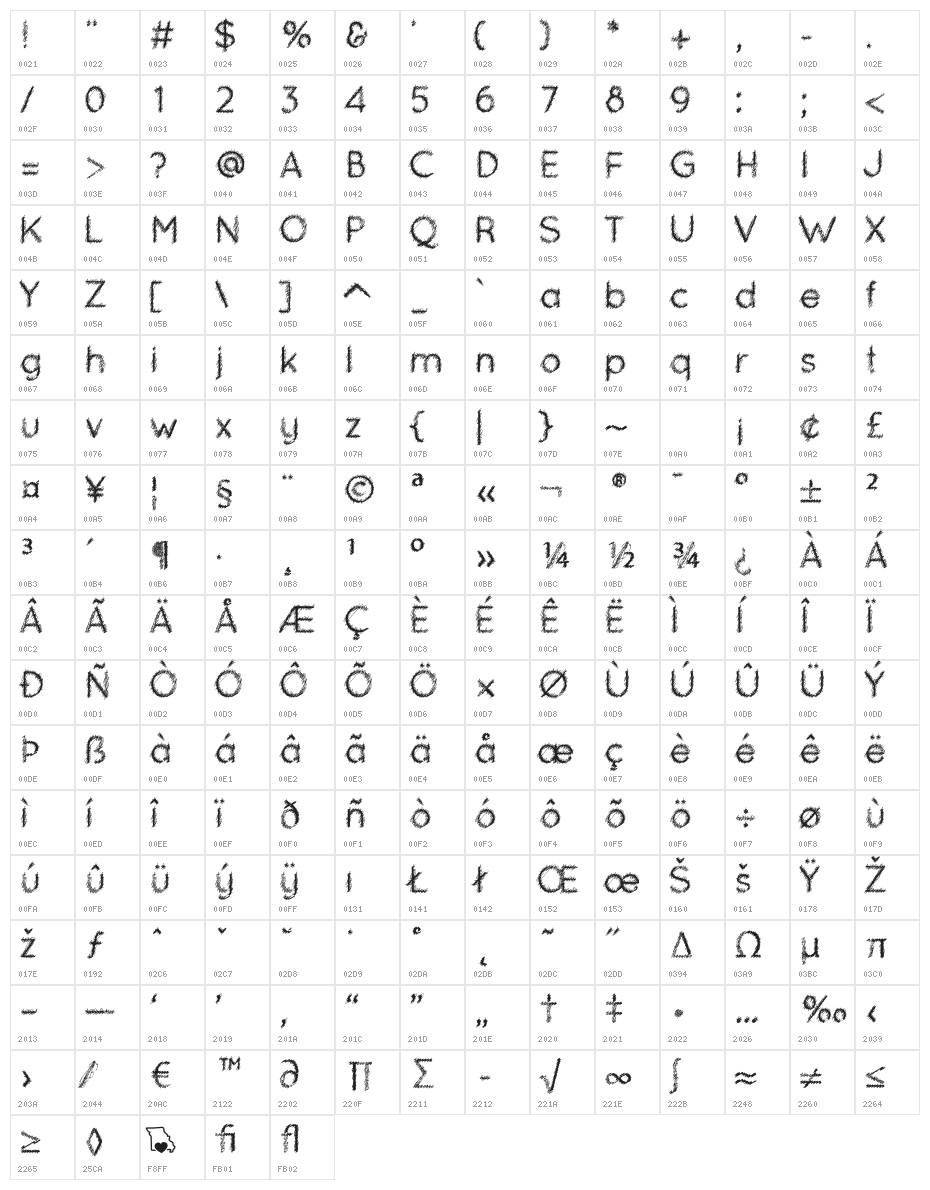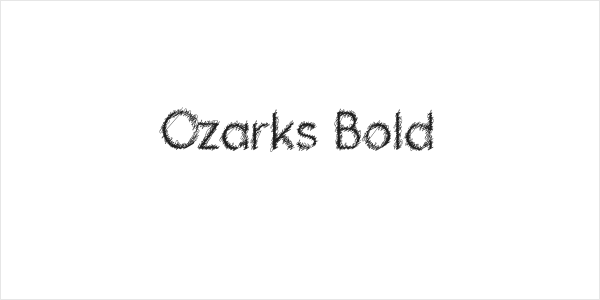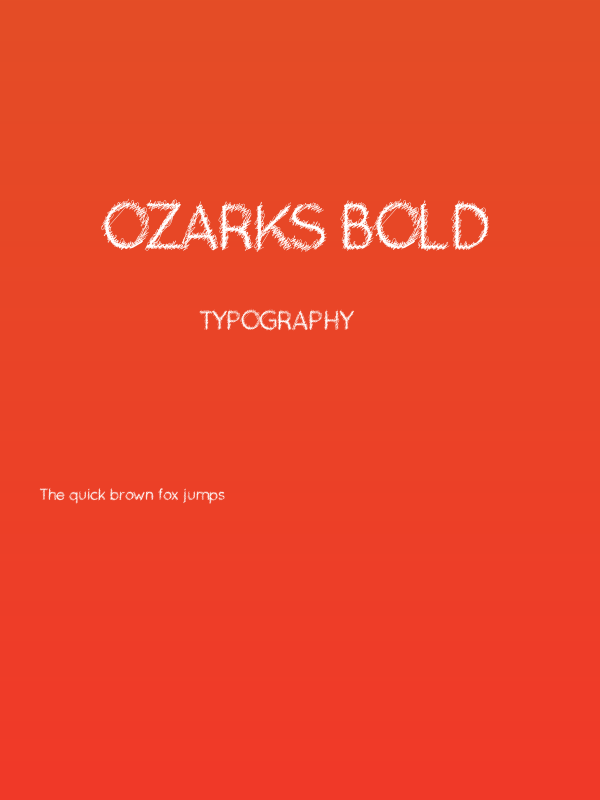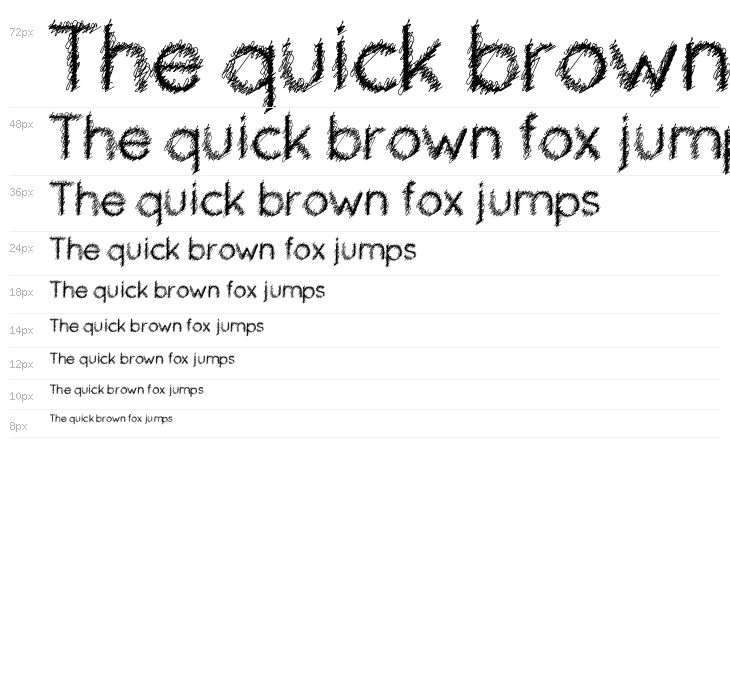
Ozarks Bold Font
Ozarks Bold Description
This font features a bold, textured style that mimics the appearance of hand-drawn or sketched letters. Each character is filled with a dense, scribble-like pattern, giving it a dynamic and energetic feel. The uppercase and lowercase letters maintain consistent proportions, while the numbers and special characters follow the same design aesthetic. The font's unique texture makes it stand out, adding a creative and artistic touch to any project. Its boldness ensures readability while the intricate detailing adds depth and interest.